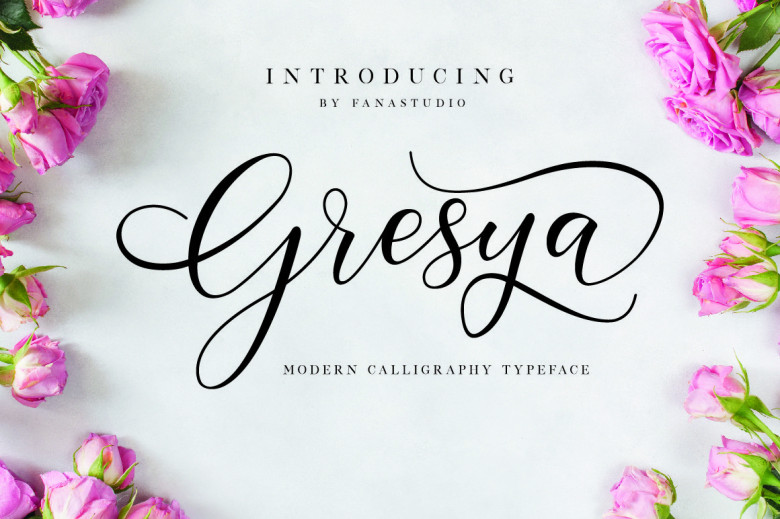
Gresya Script Font
Hello Type Lovers. Typography plays a big role in managing moods in your design, so you don’t have to skimp on choosing quality typography when you have the opportunity. Introducing Gresya Font! Gresya designed by fanastudio. The Gresya, a stylish Font Style. This beautiful script font offers your personal touch to your latest art project with elegant, classy and modern look.
The Gresya Script offers gorgeous typographic will perfect for many different project such as logos & branding, invitation, stationery, wedding designs, social media posts, advertisements, product packaging, product designs, label, photography, watermark, special events or anything that need handwriting taste.